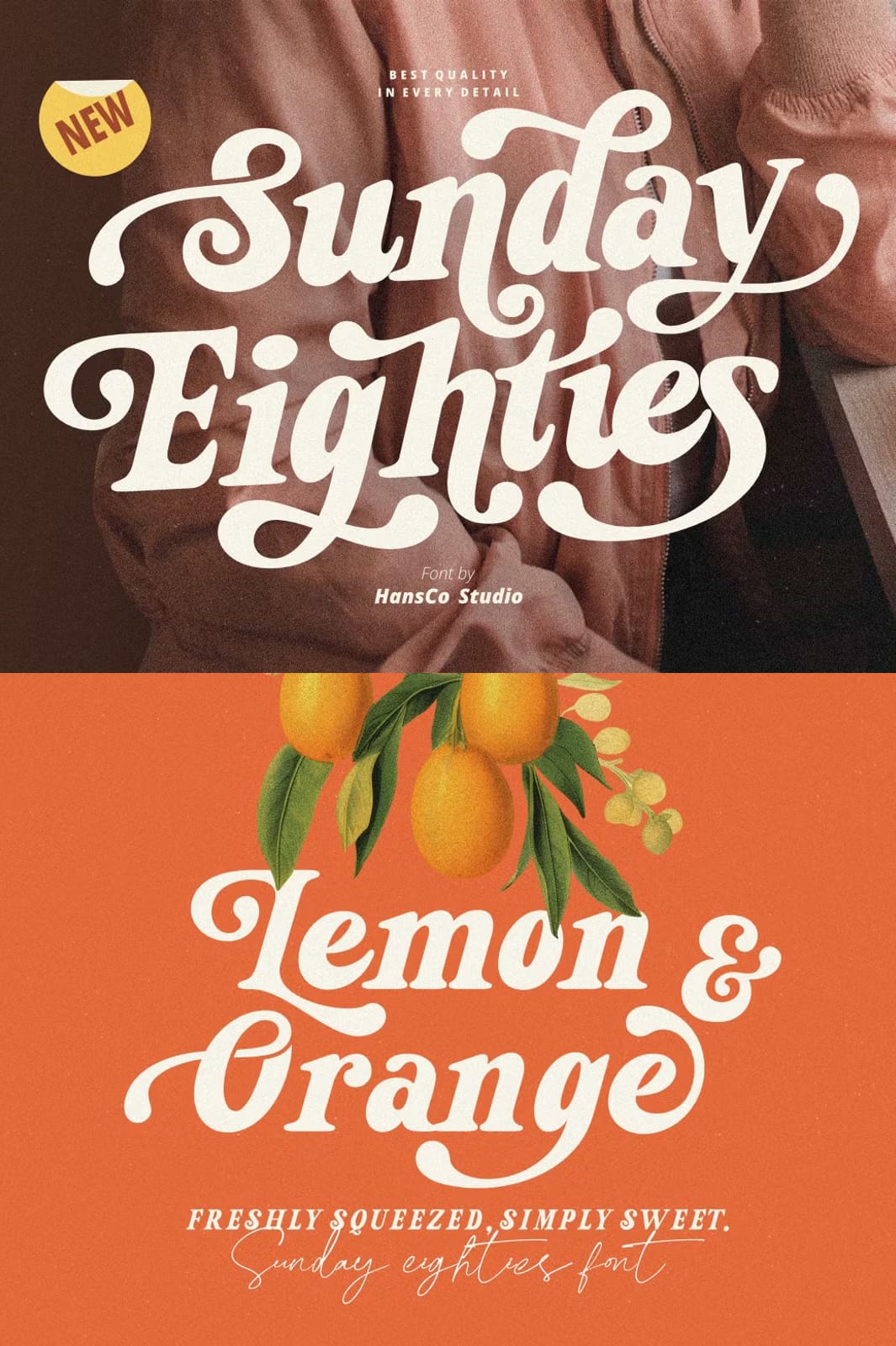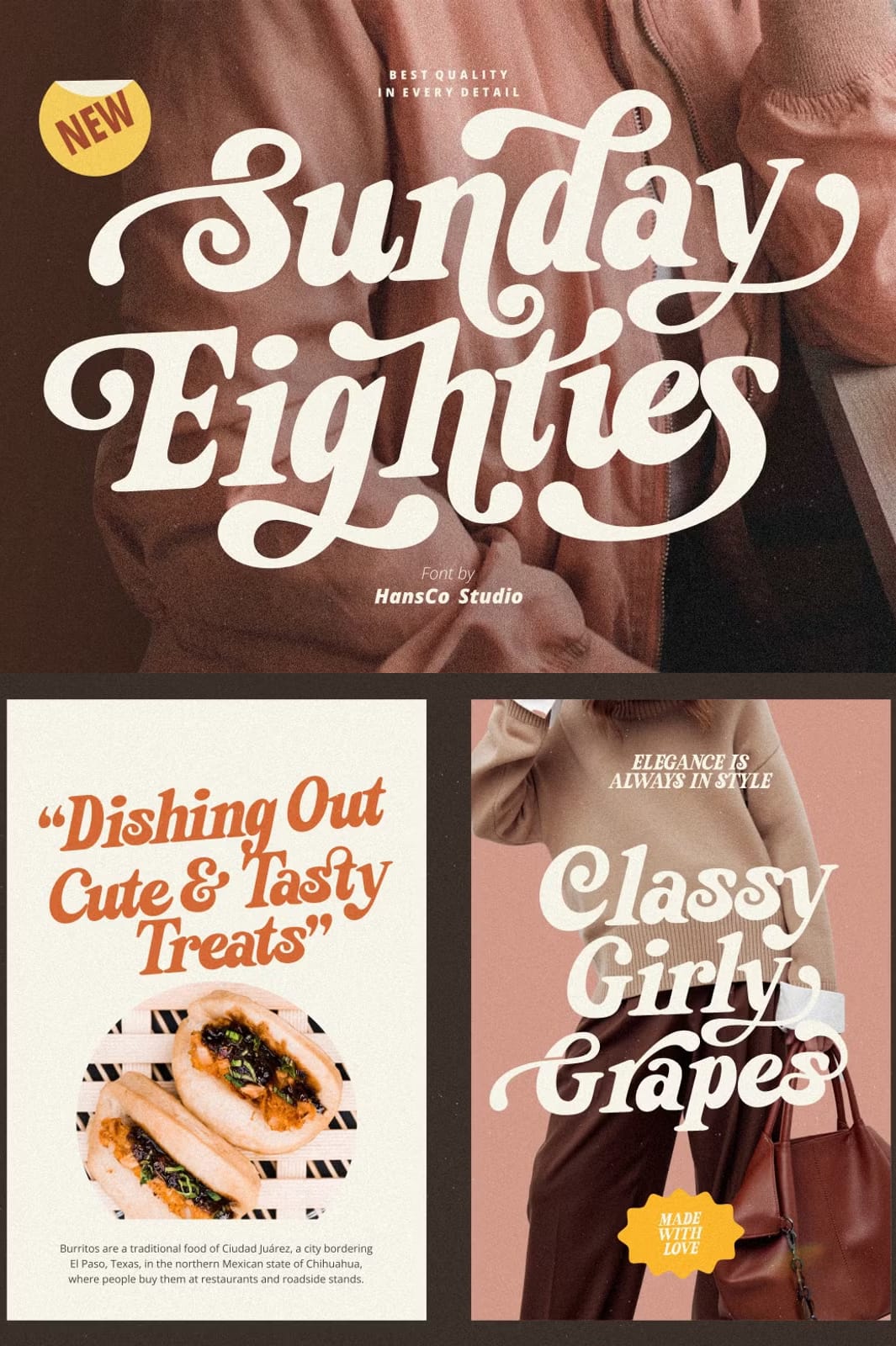
Sunday Eighties Font
A Bold Retro Vintage Serif Typeface
Sunday Eighties Font is a simple yet striking retro vintage serif typeface designed to bring a nostalgic 80s vibe to your creative projects. This display font combines bold letterforms with classic vintage charm, making it an excellent choice for designers seeking to add a unique retro touch to their work.
Versatile and Complete Character Set
This font comes fully equipped with a comprehensive set of characters, including uppercase and lowercase letters, numbers, punctuation marks, and multilingual support. Whether you are designing logos, packaging, apparel, or digital content, Sunday Eighties ensures your typography is both versatile and complete.
Enhance Your Designs with Alternative Swash Characters
To elevate your designs further, Sunday Eighties includes additional alternative swash characters and ligatures. These stylistic alternates allow you to customize your typography with elegant flourishes and unique letter combinations, adding personality and flair to headlines, brand identities, and more.
Ideal for a Wide Range of Creative Applications
Sunday Eighties is perfectly suited for various design projects, including:
• Logotypes: Create memorable and bold brand logos that stand out.
• Stickers and Packaging: Add vintage appeal to product labels and packaging designs.
• Apparel and T-Shirts: Design trendy and nostalgic clothing graphics.
• Posters and Magazines: Craft eye-catching headlines and editorial layouts.
• Digital Media: Enhance YouTube thumbnails, Instagram posts, and websites with retro style.